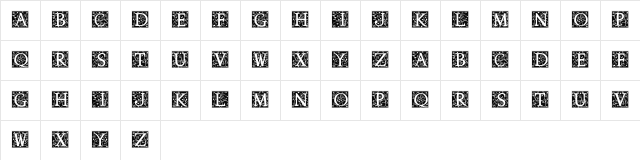
Nabel Initials Regular
Foundry: Toto
Designer: Toto
Design Context for Nabel Initials
Nabel Initials is a composed and adaptable typeface that performs quietly and consistently across a wide range of design contexts.